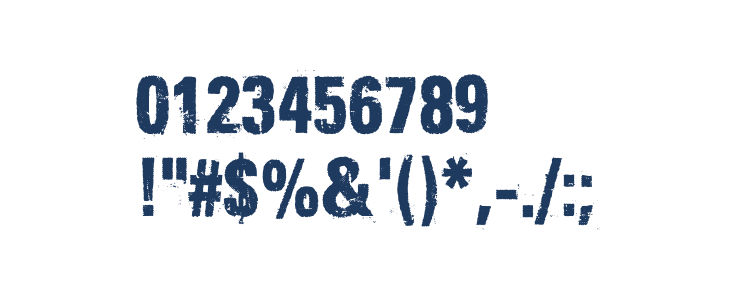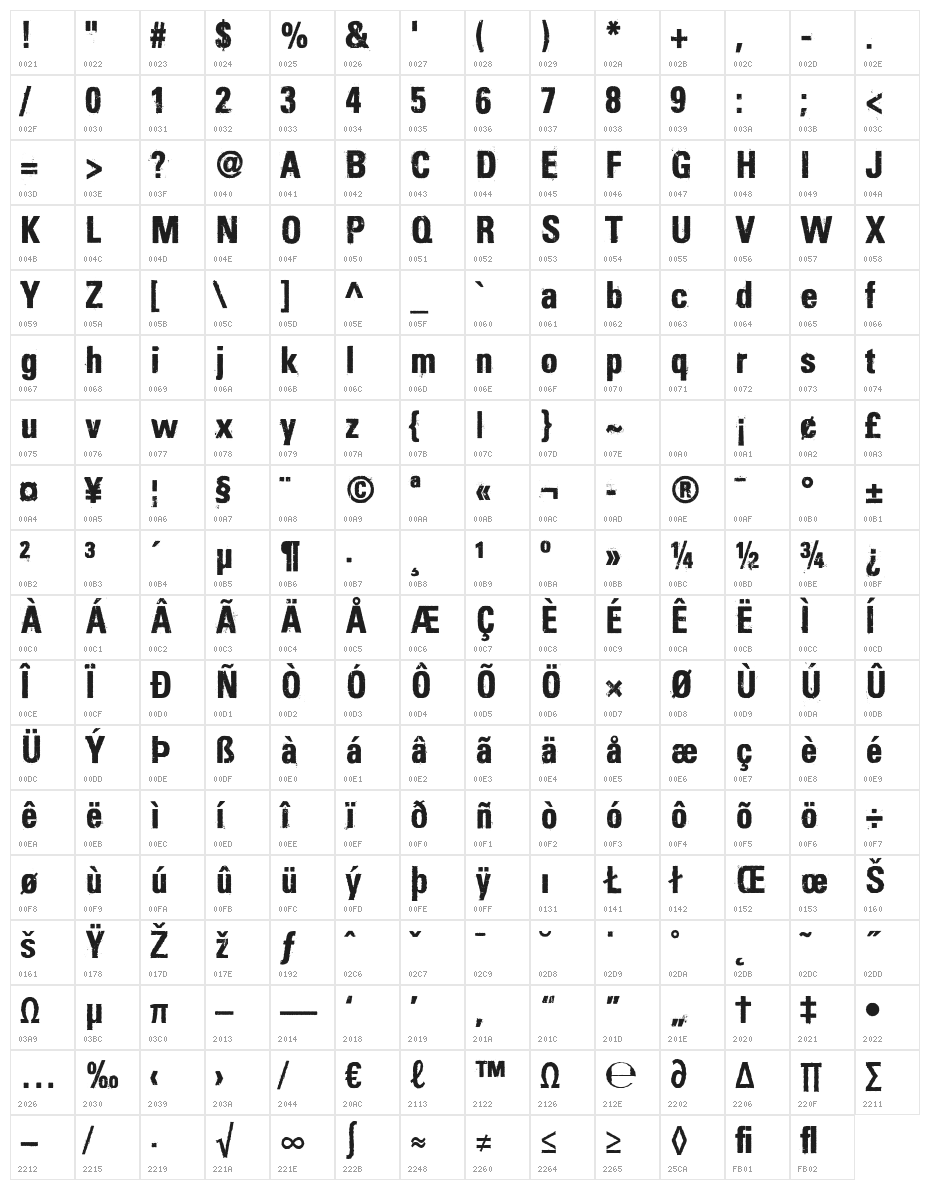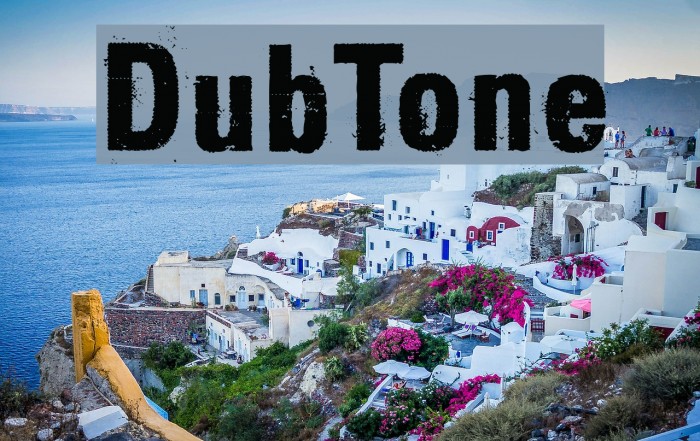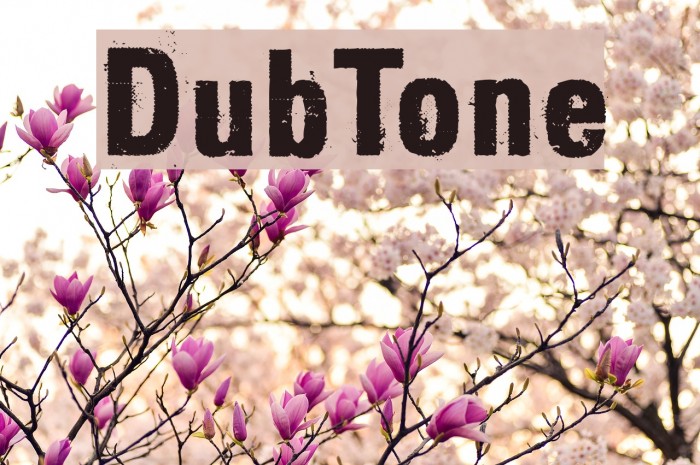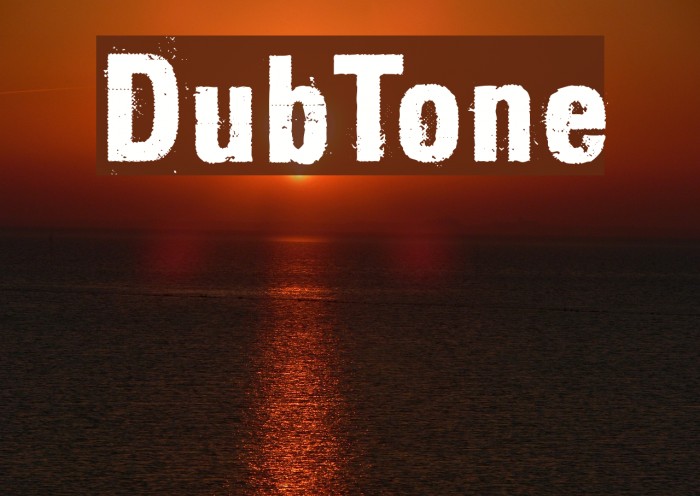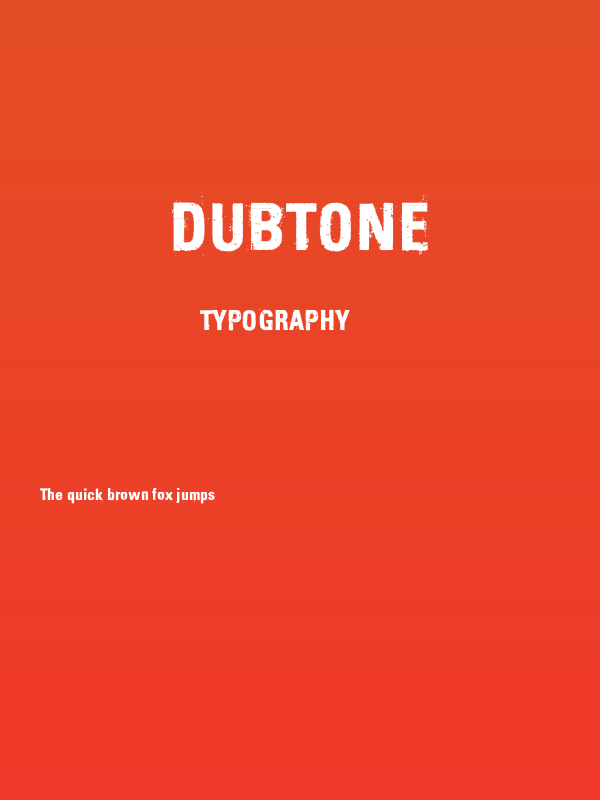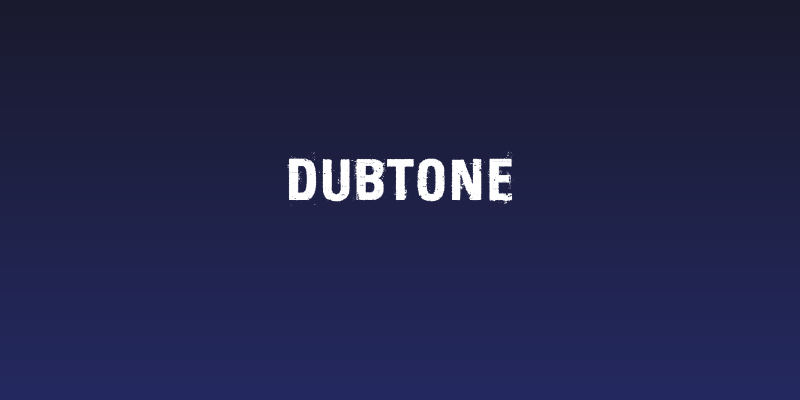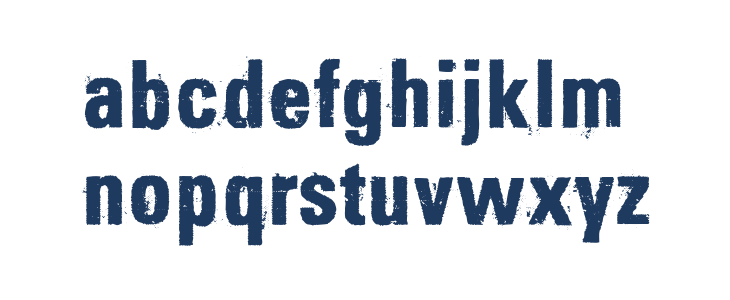
DubTone Font
DubTone Description
This font exhibits a bold, distressed style with a textured appearance that gives it a rugged, vintage feel. The characters are uniformly bold with a slightly rough edge, suggesting a worn or weathered look. This texture adds a layer of depth and character, making it stand out in any design. The uppercase and lowercase letters maintain a consistent weight, while the numerals and special characters follow the same distressed pattern. The font's boldness and texture make it ideal for projects that require a strong visual impact.
| Proposed Projects | Ideal for posters, album covers, branding, and any design needing a vintage or grunge aesthetic. |